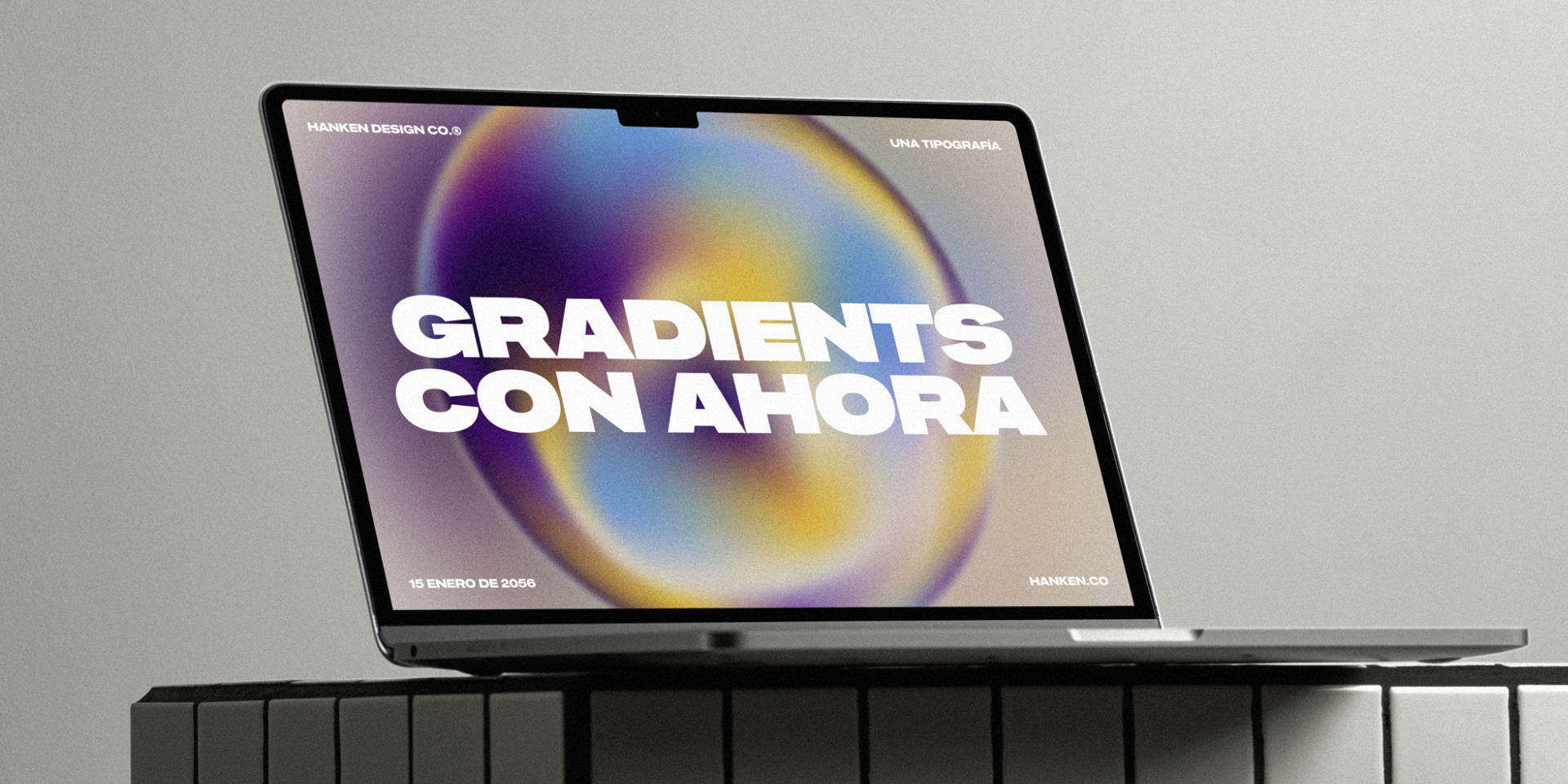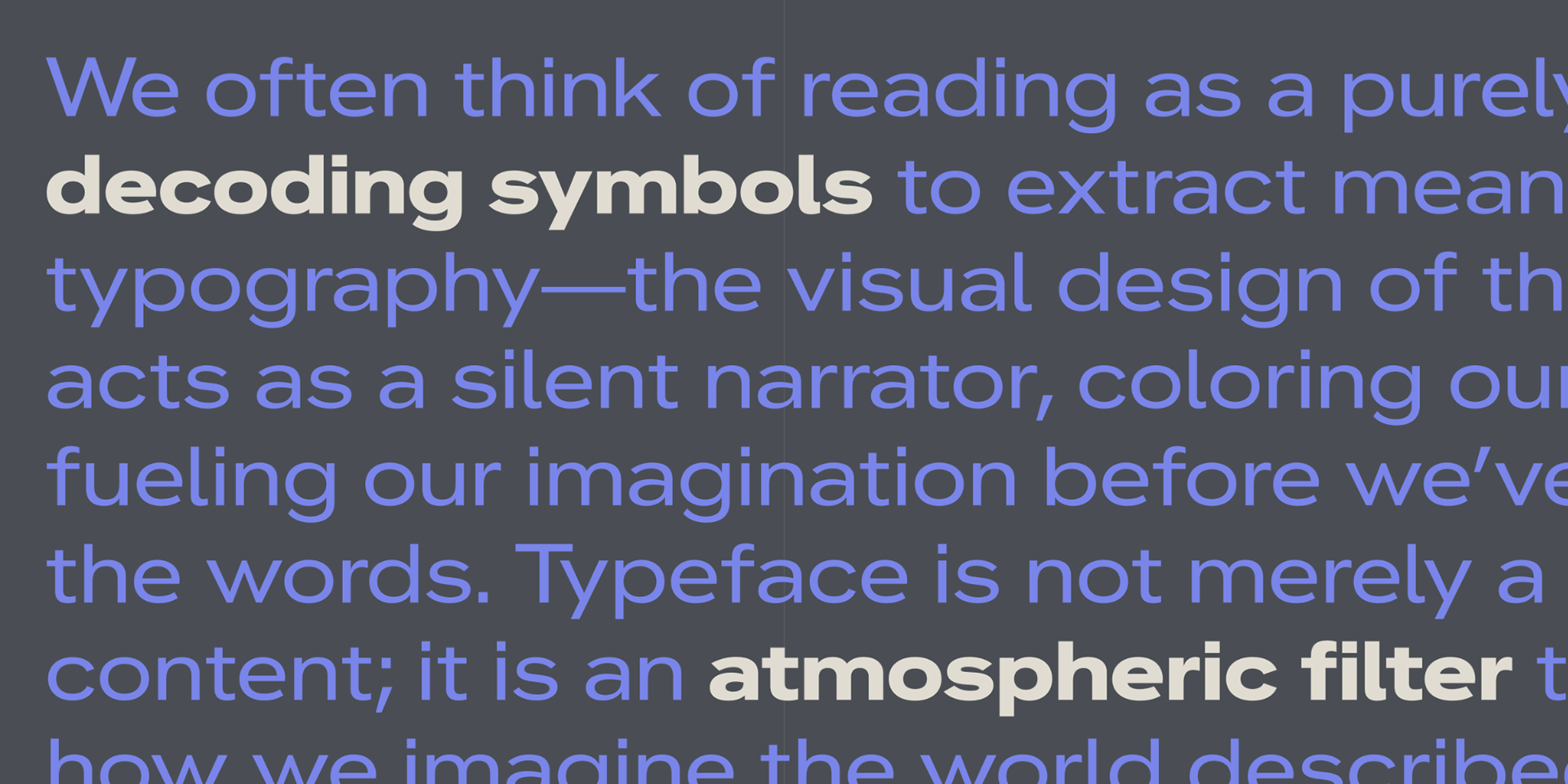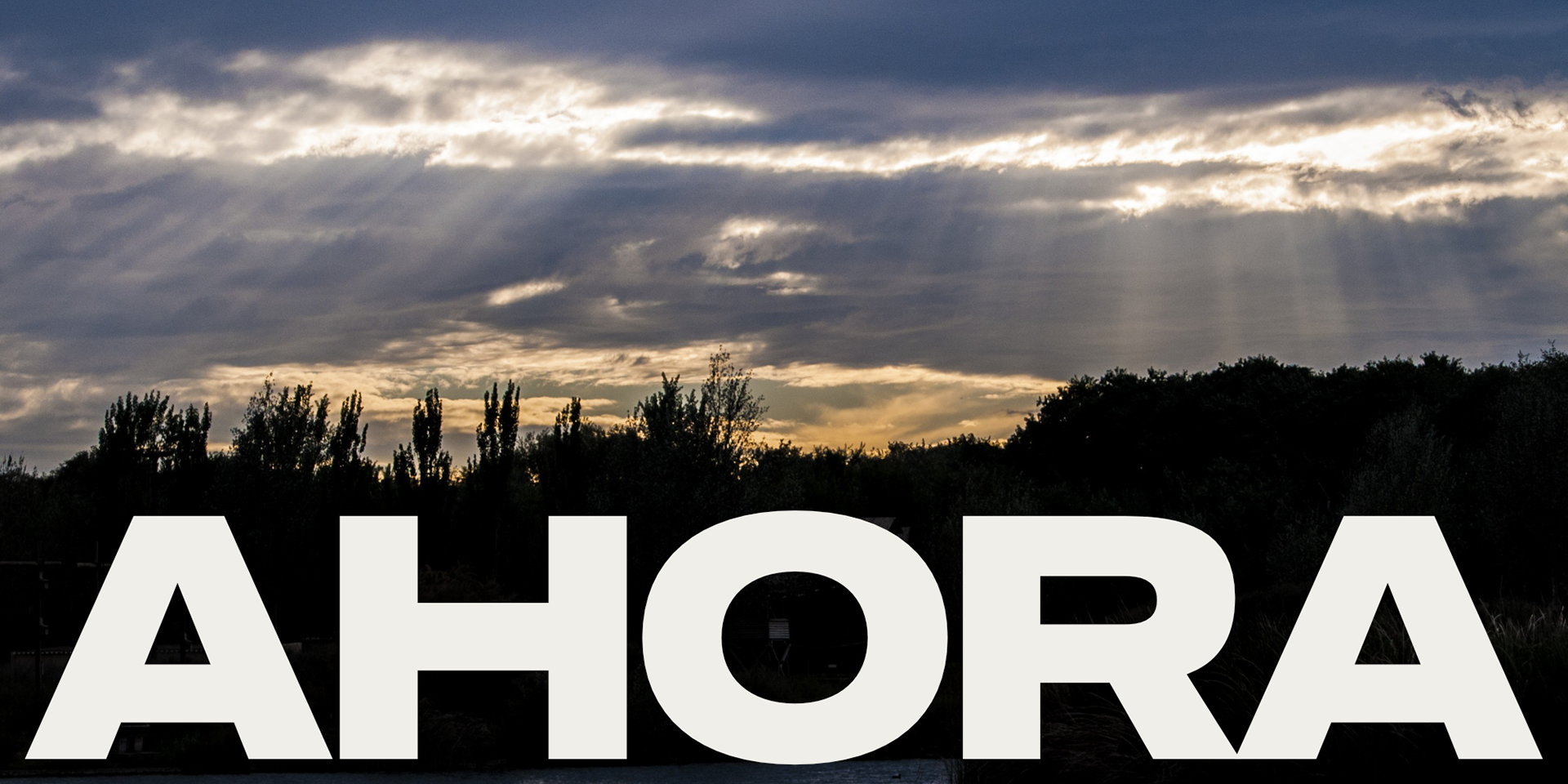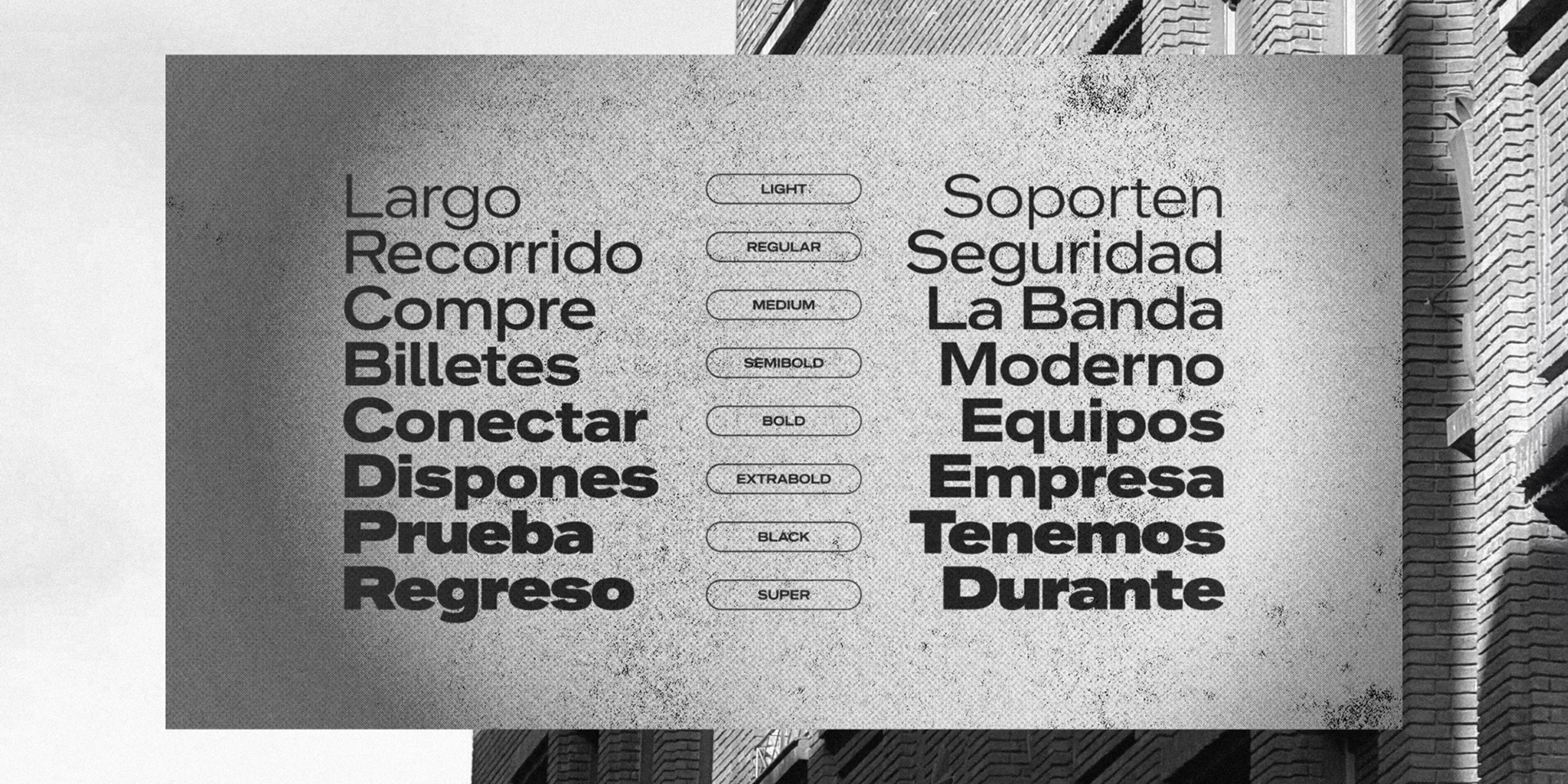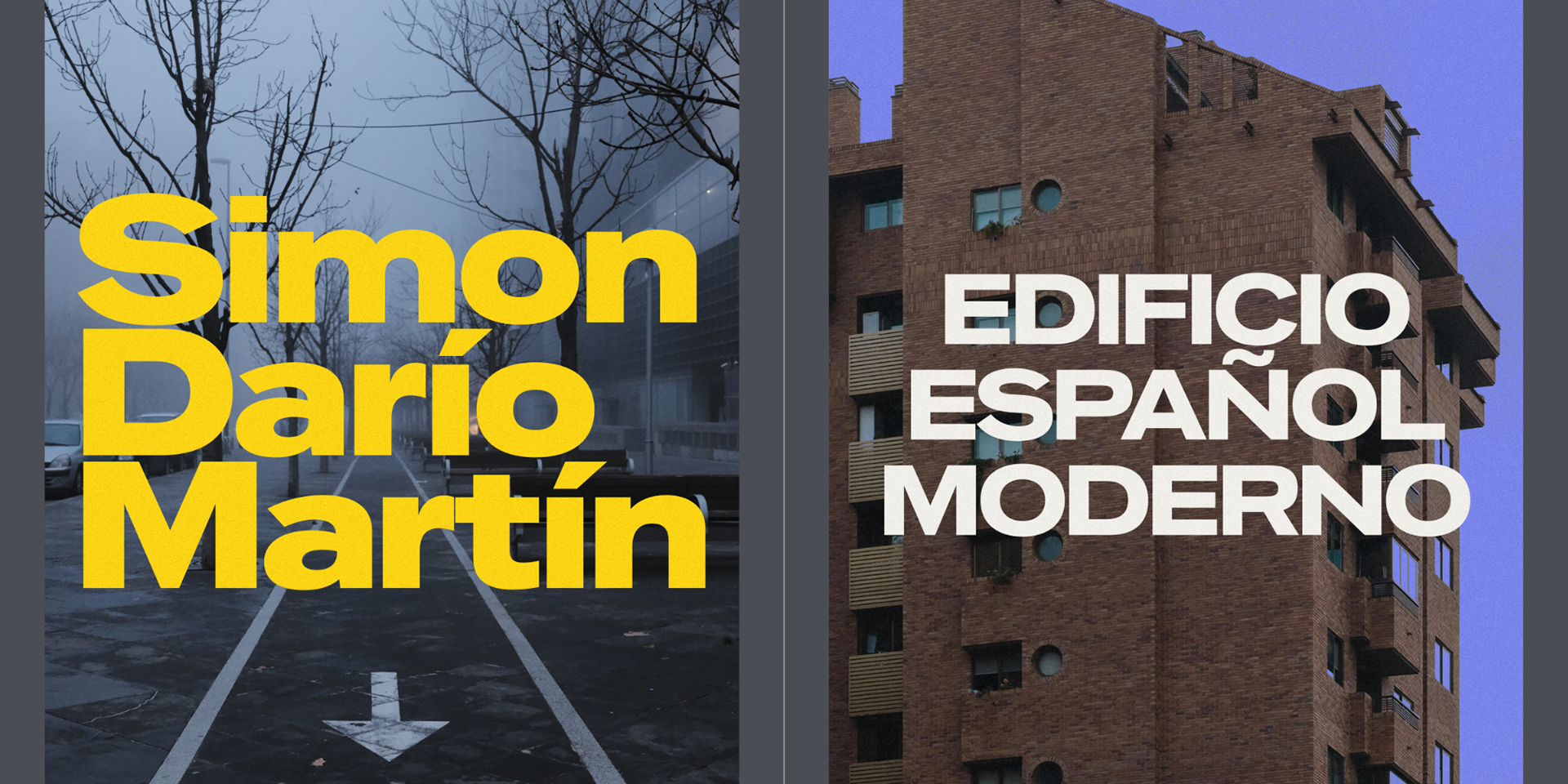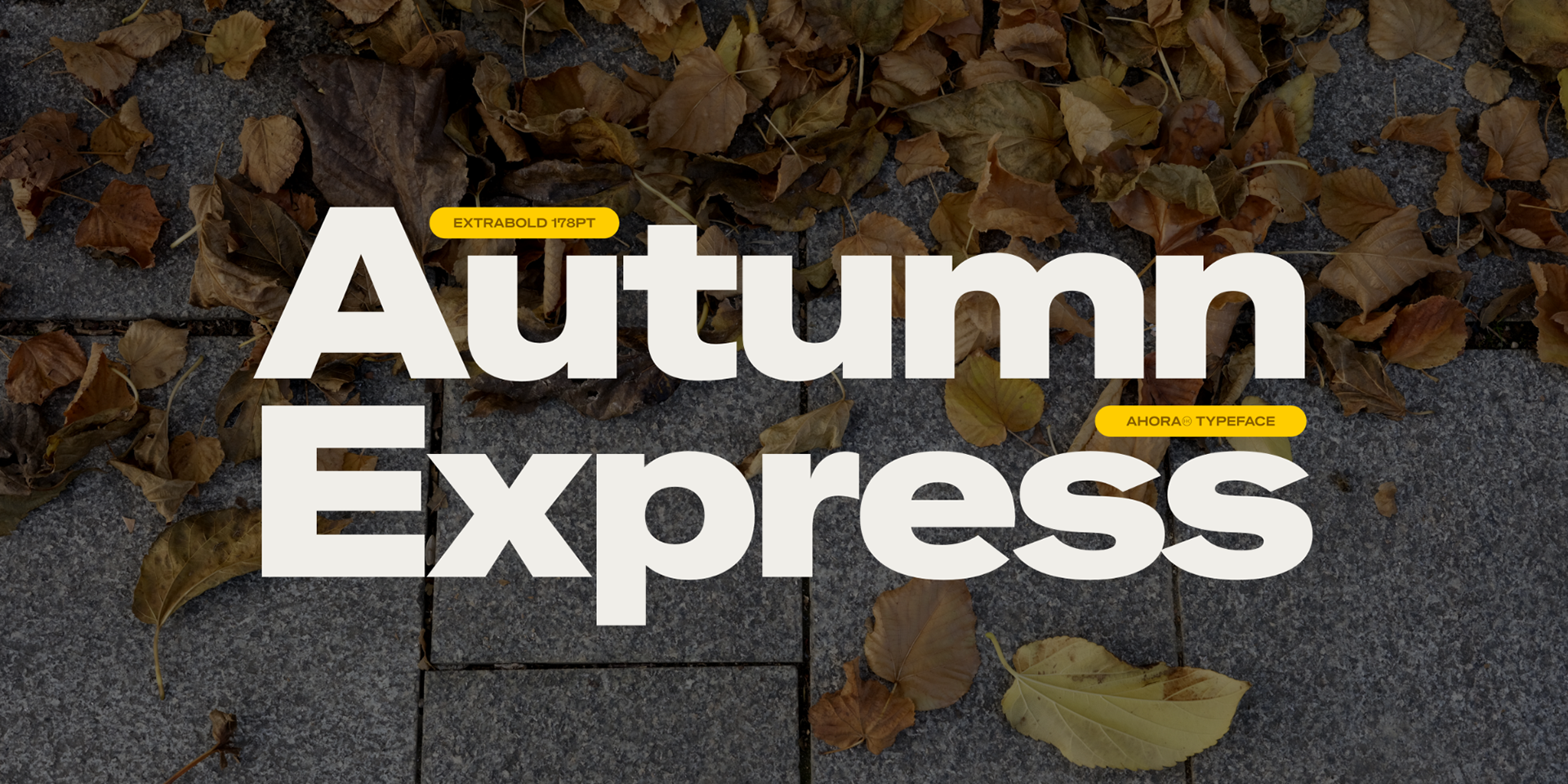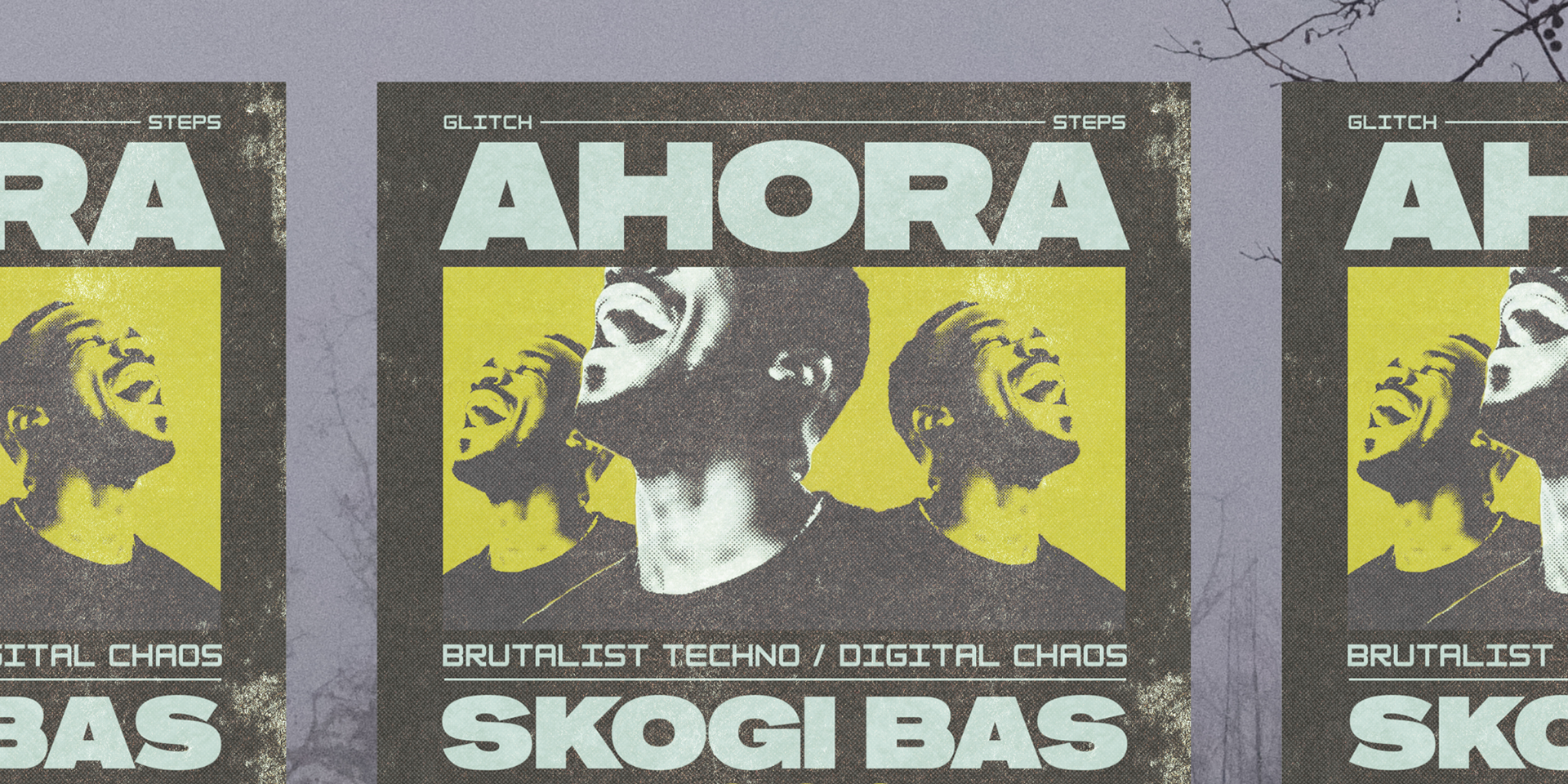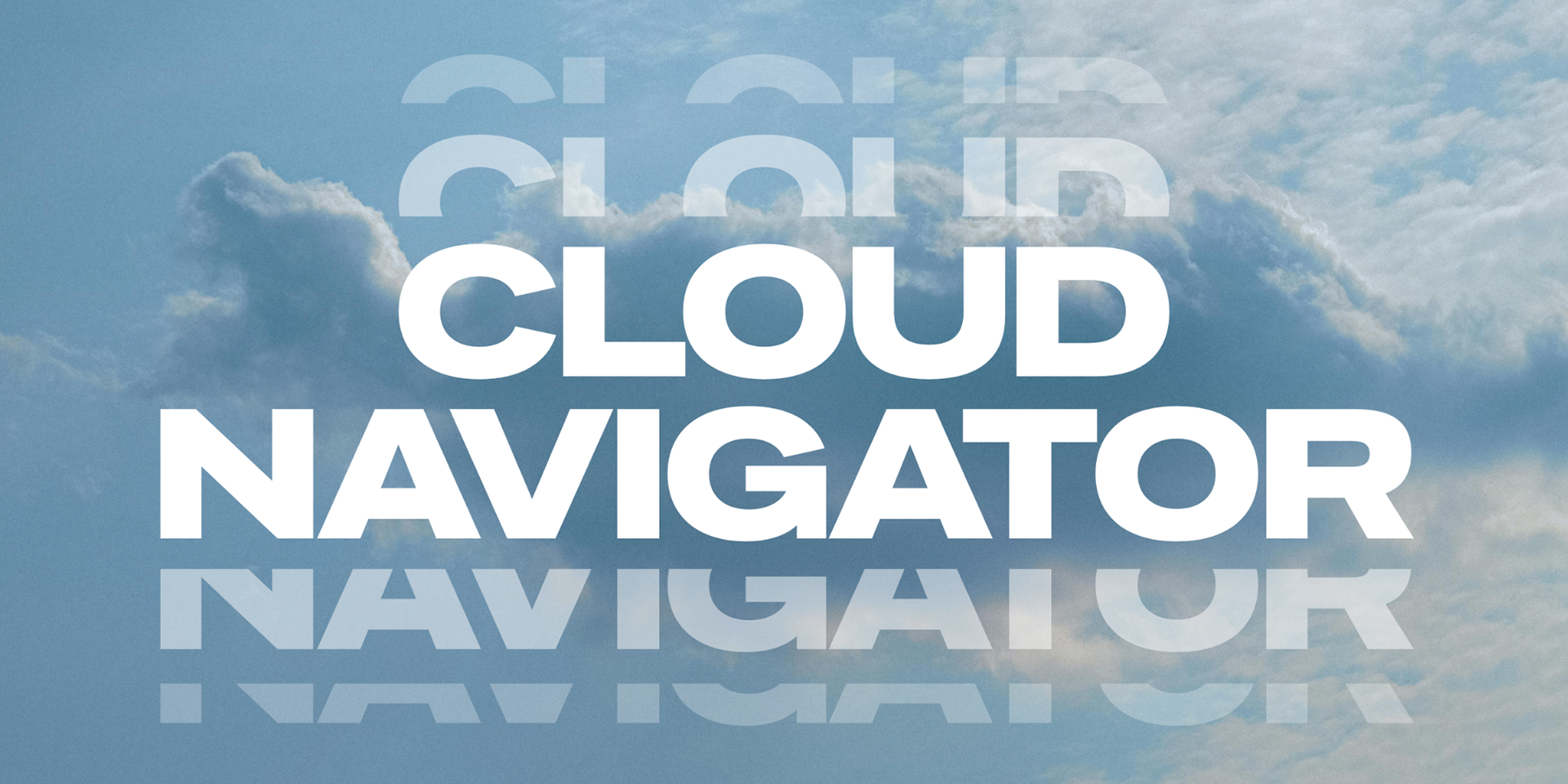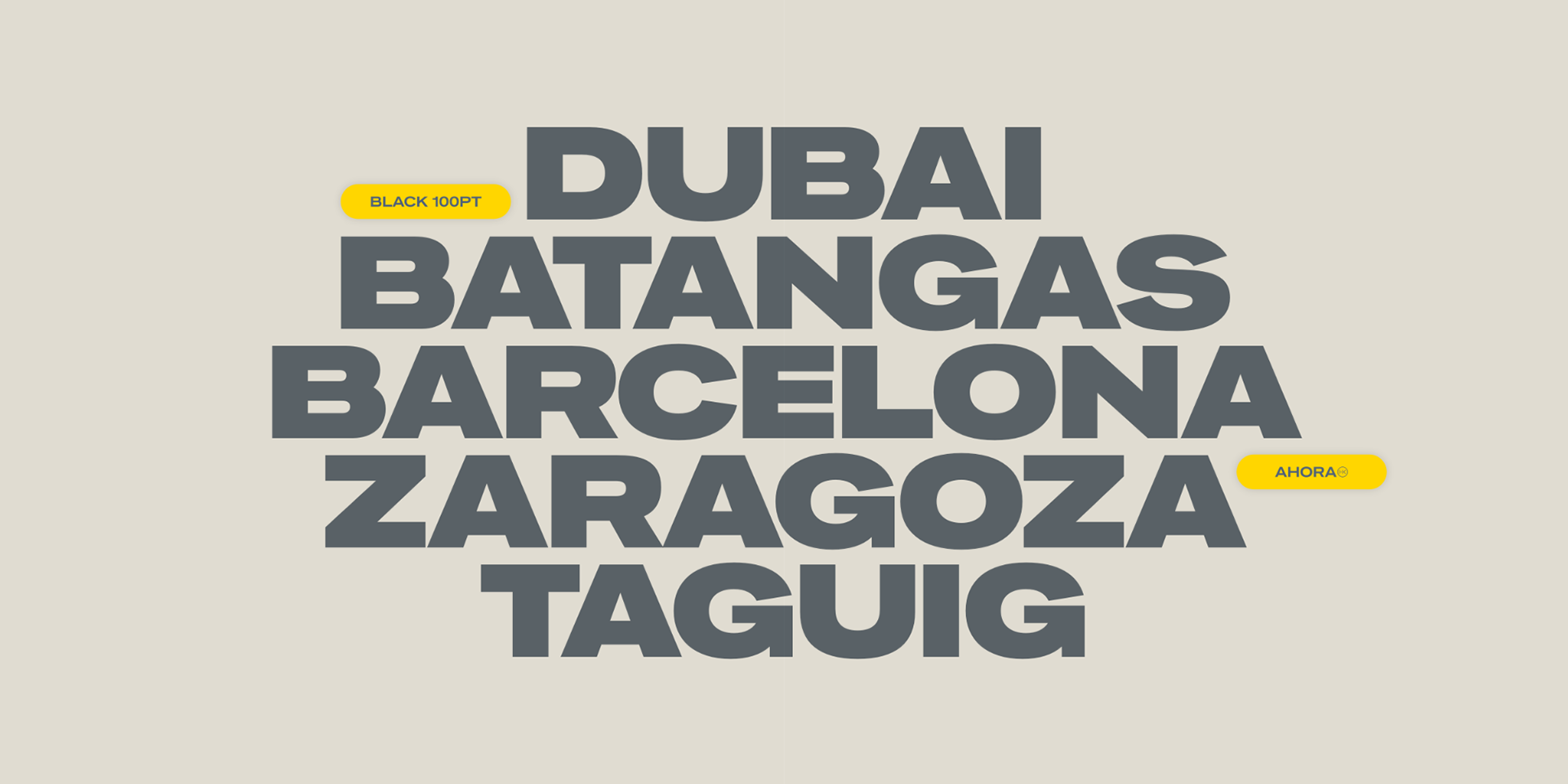
Ahora is a wide-stance sans-serif built for impact. It mixes the straightforward utility of industrial signage with a modern, cinematic width. The family features 8 weights; the lighter styles are clean and architectural, while the heavy weights turn words into solid graphic blocks. It’s a typeface for when you need the text to do the heavy lifting—perfect for bold editorial spreads, tech branding, or wayfinding systems.